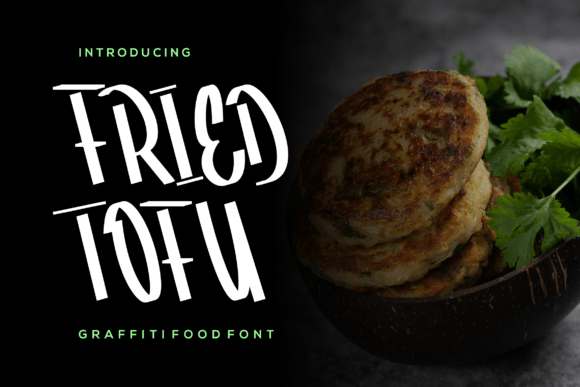
Journey into the realm of expression with Fried Tofu Font, a captivating creation inspired by urban graffiti aesthetics. Unleash your creativity and leave an indelible mark on your designs with this script font that oozes personality and authenticity.
Dive into a world where letters dance with a raw, untamed energy. This free-spirited font is a work of art that captures the essence of street culture, embodying the vibrancy and rebellious spirit of the urban landscape.
Fried Tofu Font is an emblem of individuality, a testament to the power of self-expression. Its unique characters, reminiscent of spray-painted markings, will add an edgy touch to your designs, making them stand out from the ordinary. It's a font that demands attention, inviting your audience to engage with your message with an intensity that resonates.
With Fried Tofu Font, you'll unlock a universe of design possibilities. Whether you're crafting logos that command attention, social media posts that captivate, or website designs that leave a lasting impression, this font will elevate your creations to new heights.
So, embrace the spirit of Fried Tofu Font and let your designs echo the untamed rhythm of the streets. Let your creativity flow freely and watch as your projects transform into masterpieces that exude individuality and authenticity.